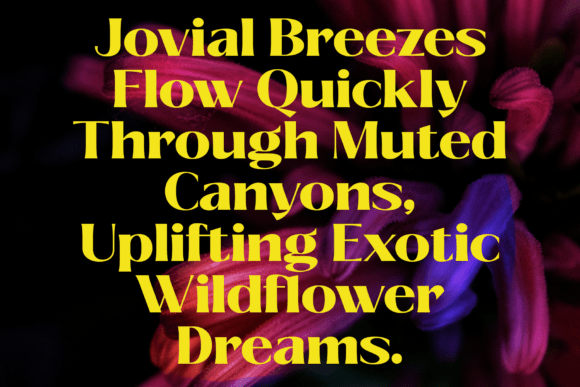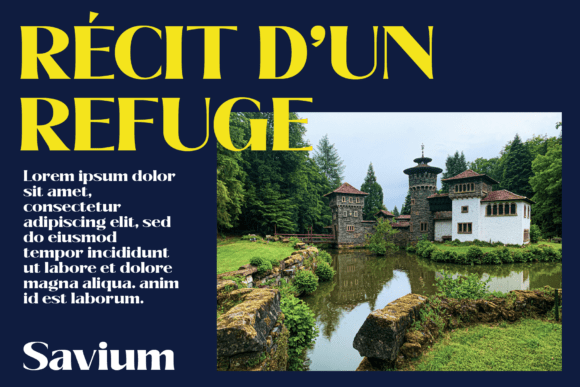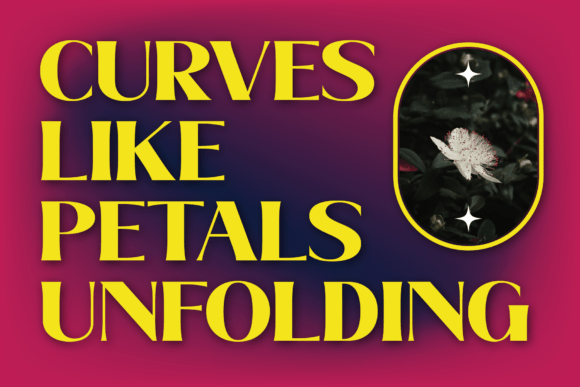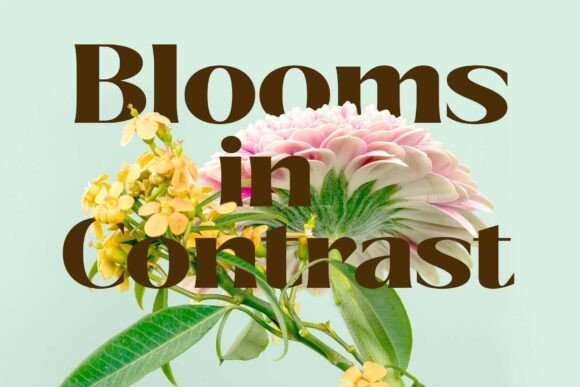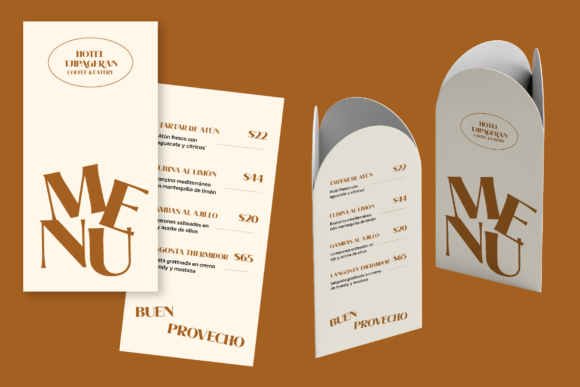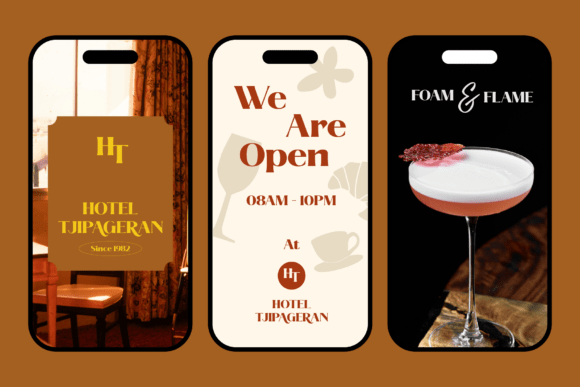
Introduction to Savium Font
As a designer, there’s nothing quite like the thrill of creating a new project from scratch. You’re given a blank canvas, a spark of inspiration, and the freedom to bring your vision to life. But, let’s be honest – sometimes, the perfect font can be the difference between a design that’s merely good and one that’s truly great. That’s where Savium Font comes in, a stunning high-contrast serif display font that’s designed to elevate your creative project and leave a lasting impression.
With its classic proportions, refined curves, and bold yet sophisticated style, Savium Font is the perfect addition to any design resource. Whether you’re working on a high-end fashion brand, a luxury lifestyle editorial, or a modern packaging project, this elegant font is sure to deliver a striking balance of style and readability.
Key Features of Savium Font
- Designed with precision and care to provide a unique aesthetic
- Perfect for use in digital design, print media, and web development
Honest Review: Savium Font
I recently had the opportunity to work with the Savium Font, and I must say it’s been a great addition to my design resource collection. One of the things that stands out about this font is its high quality and versatility. It’s perfect for a wide range of creative projects, from print to digital design.
- ✨ The font’s clean and modern design makes it perfect for minimalist designs
- ⚠️ The font may not be as suitable for projects that require a more traditional or ornate font style
- ⚠️ The font may not be as easily readable in smaller font sizes
Overall, I’m impressed with the Savium Font and would highly recommend it to designers looking for a high-quality, versatile font for their creative projects.
Savium Font
The Savium Font is a high-quality, free download design resource perfect for any creative project. With its unique and elegant style, this font is ideal for various applications, including logos, headings, and body text.
Tips for Getting the Most Out of Savium Font
To get the most out of the Savium Font, use it on a transparent background for a sleek and modern look. Experiment with different font sizes and styles to create a visually appealing design.
Alex Brush Font is a high-quality, elegant script font perfect for design projects that require a touch of sophistication and elegance. It’s ideal for use in creative projects such as branding, packaging, and marketing materials. Alex Brush Font offers a transparent background, making it easy to layer over other design elements.
Compared to Savium Font, Alex Brush Font has a more refined and sophisticated look, making it suitable for luxury brands and high-end design materials. It’s available for free download and is a valuable design resource for any designer.
Creative Projects with Savium Font
Create a high-quality quote poster using Savium Font with a transparent background. This design resource is perfect for a creative project that requires a clean and modern look.